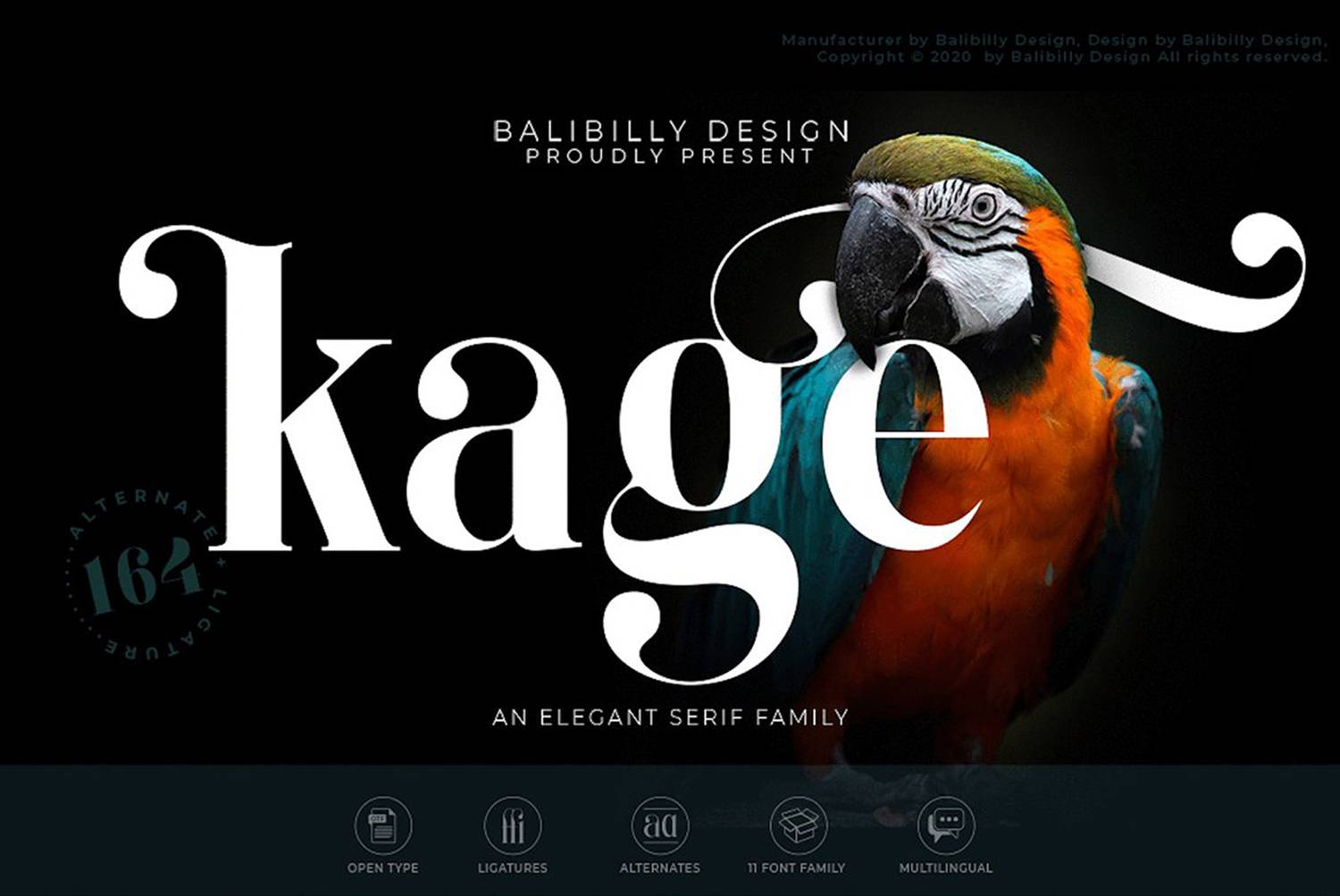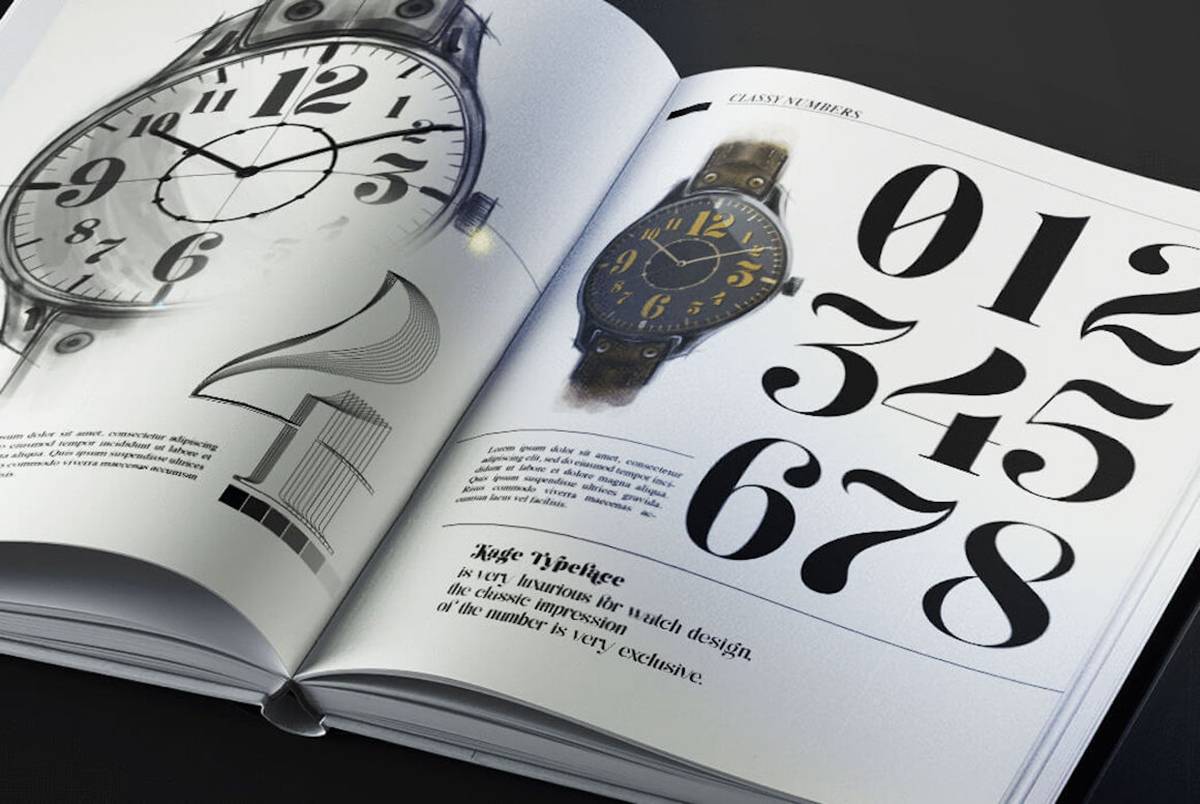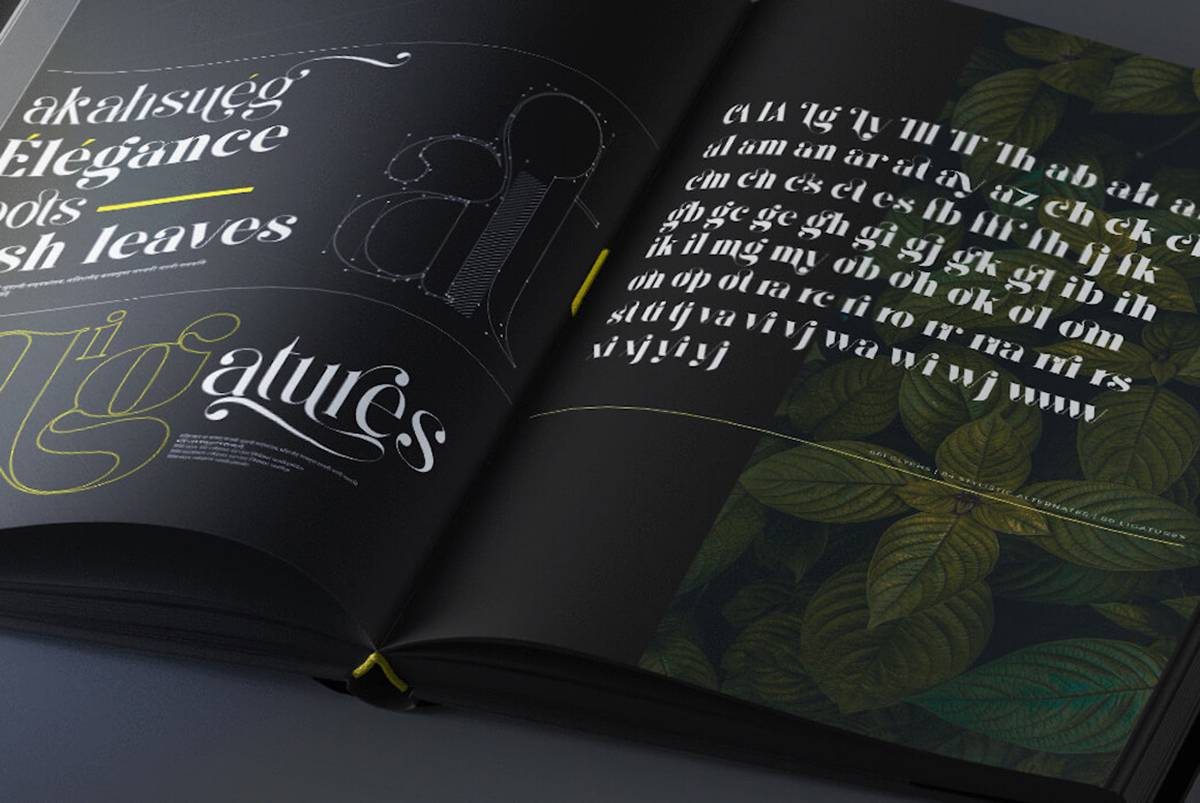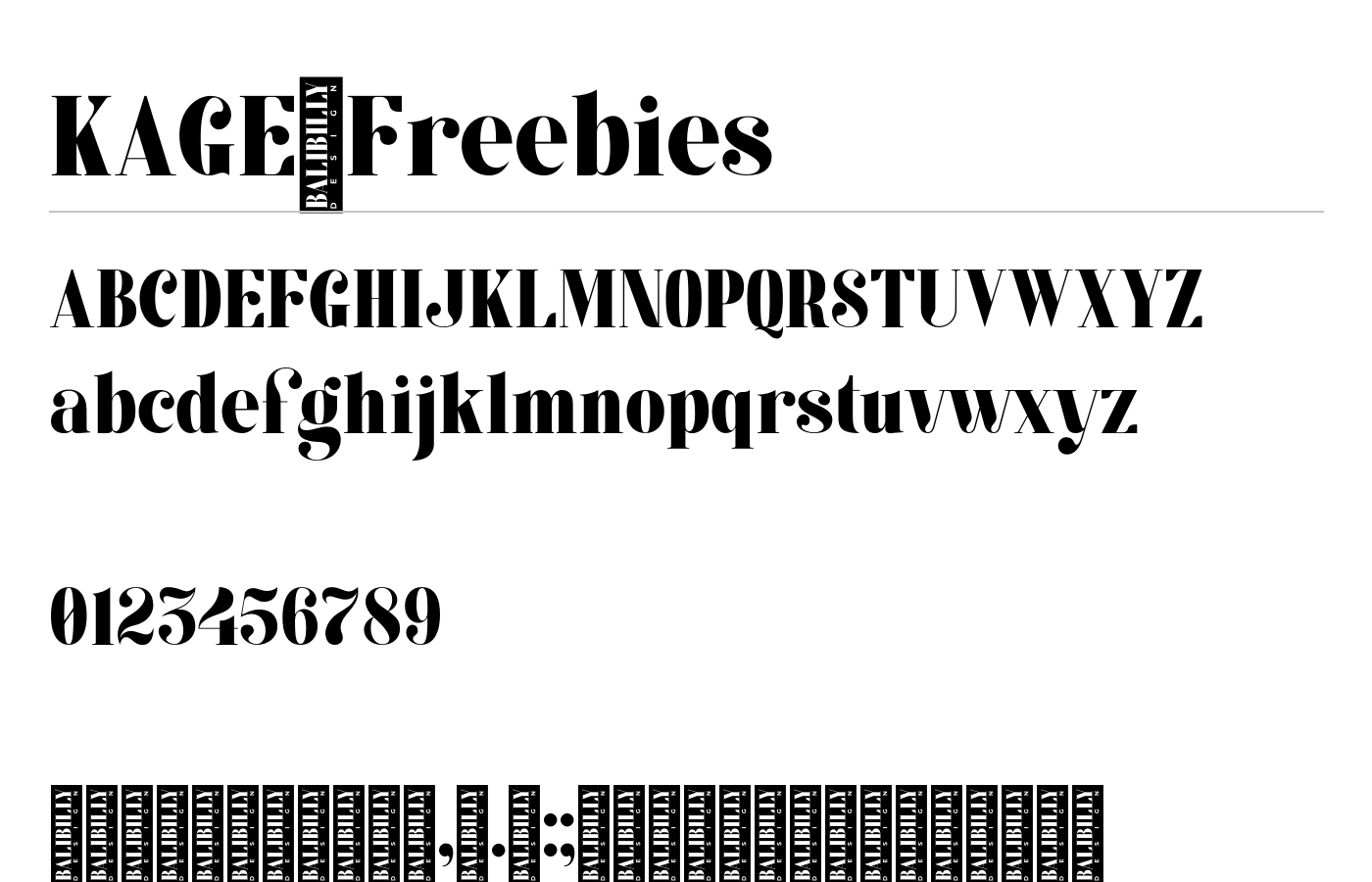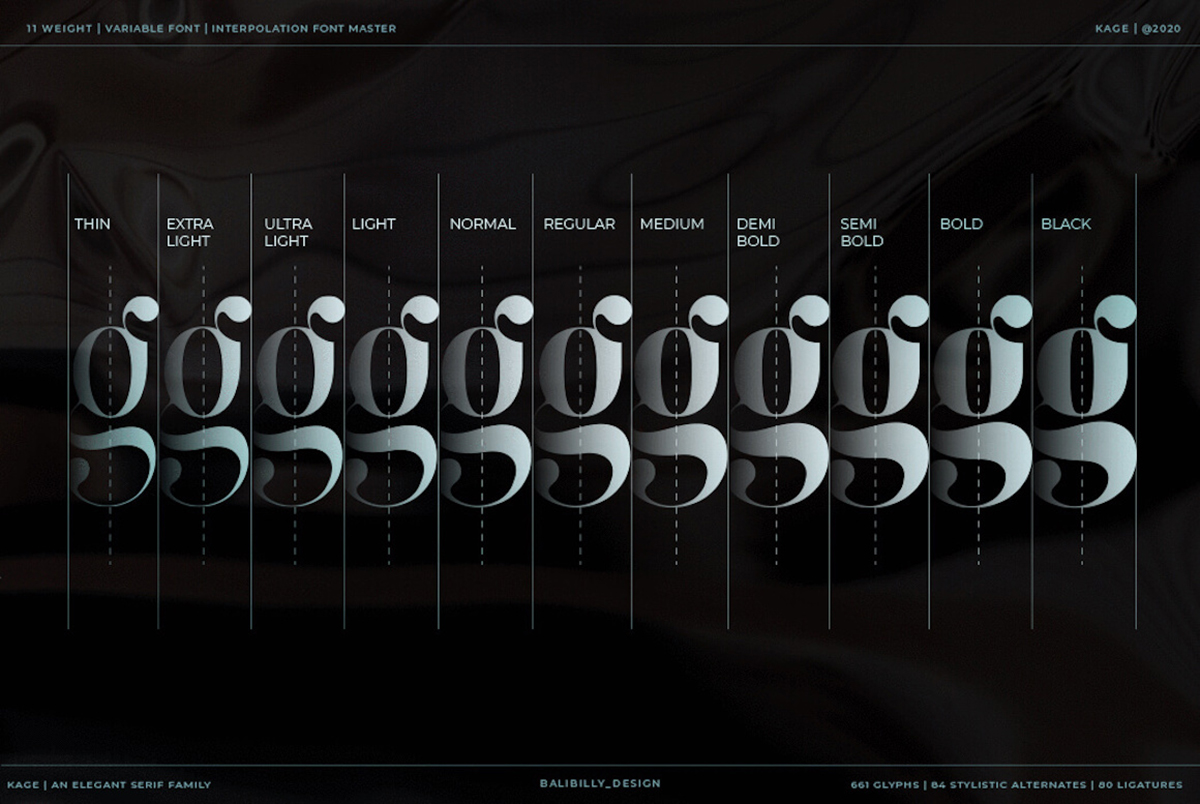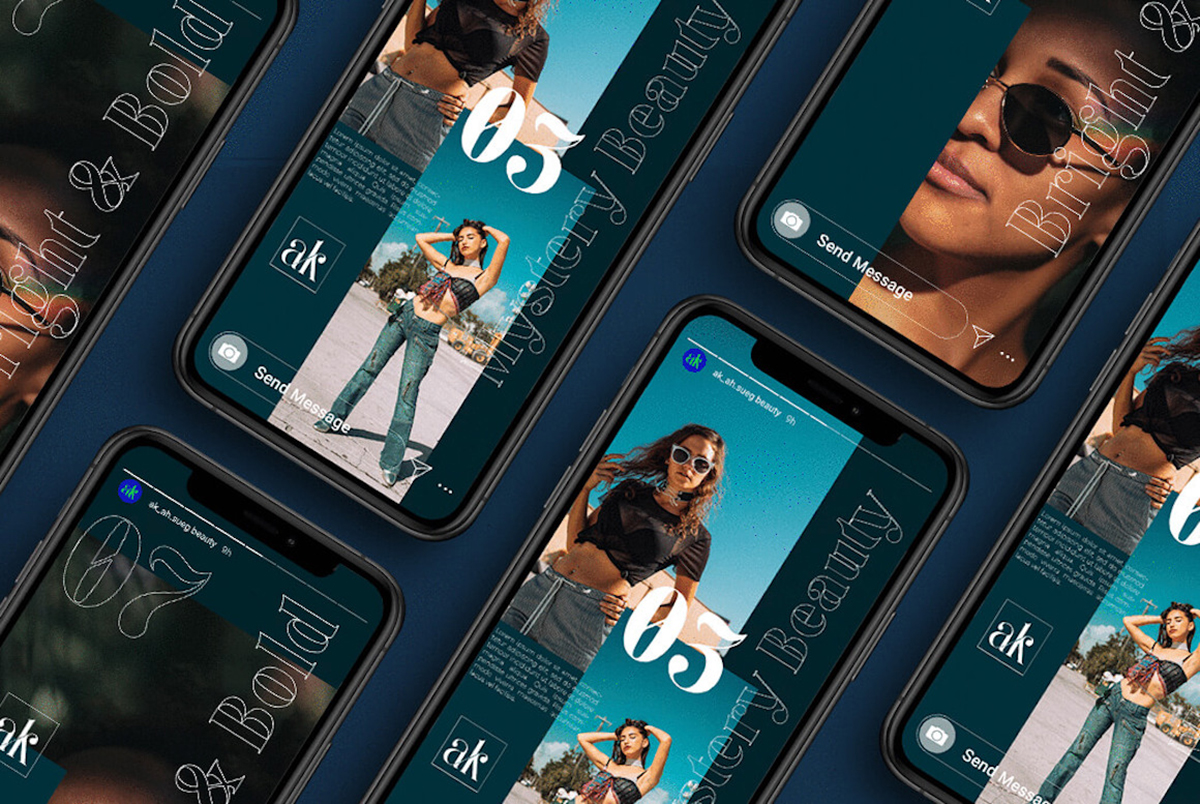
Kage Elegant Serif is a bold and sophisticated serif font that combines high contrast strokes with dramatic flair, featuring unique double-story characters and distinctive curves for a striking appearance. Its tall, condensed letterforms and luxurious style make it perfect for fashion branding, editorial headlines, and logos that need a touch of elegance and impact. This font stands out in contexts where bold, refined, and modern serif typography is desired to communicate exclusivity and style.
Kage Elegant Serif
About Kage Elegant Serif
| Font family | Kage Elegant Serif |
| Designer | Balibilly Design |